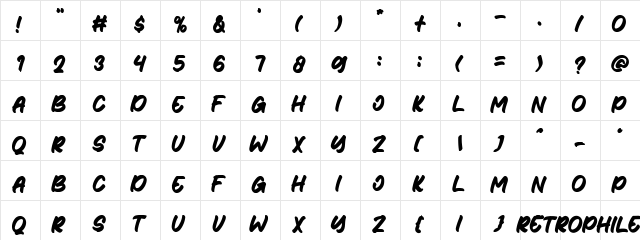
Retrophile Italic
| Foundry | Stefie Justprince |
| Designer | Stefie Justprince |
Design Context for Retrophile Typeface
Retrophile wears its vintage influences proudly, with letterforms that recall mid-century signage, classic packaging, and nostalgia-driven design. Its italic angle brings a sense of urgency and motion to the letterforms.
Font Pairing: Combine Retrophile with a simple slab or neutral sans — period-accurate companions reinforce the vintage feel without competing for attention.
Pro Tip: Use Retrophile for headlines and pull quotes rather than body copy — its personality is best appreciated in short, focused bursts.